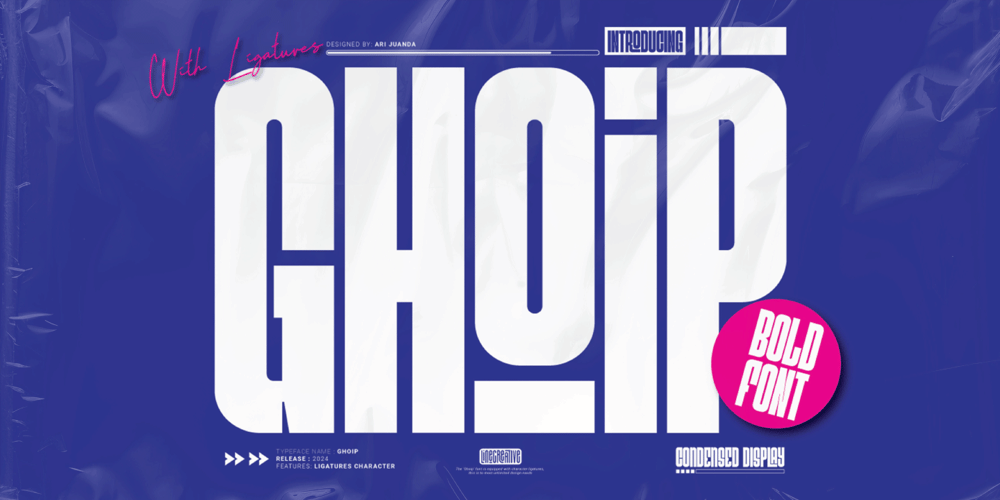
Ghoip Font Family was designed by Ari Juanda and published by Linecreative. Ghoip contains 1 styles and family package options. Presenting Ghoip is a thick sans-serif typeface that was designed to be used in bold titles. Its bold yet elegant appearance, along with its ligatures, provides for an amazing design experience. Come with single weight, recognizable, and evocative shapes.